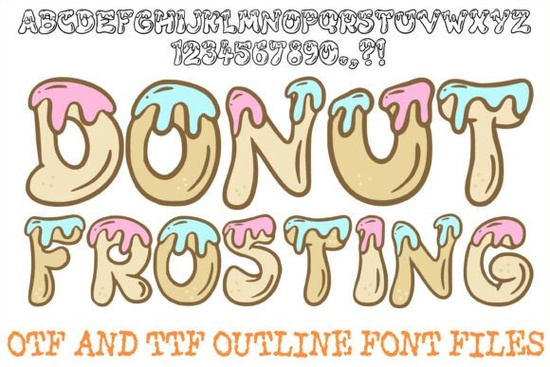
The Donut Frosting Font is a standout choice for anyone looking to add a playful, whimsical touch to their design projects. With its thick, rounded letterforms and exaggerated frosting details, this font brings a sense of fun and creativity that’s perfect for a variety of applications. Whether you're designing for a bakery, a children's event, or a food-related business, the Donut Frosting Font can help make your work more engaging and visually appealing.
One of the key features of the Donut Frosting Font is its versatility. The font includes clean interior paths, allowing users to color in the base letters and the frosting caps separately. This means you can mix and match colors to create unique combinations, like a classic chocolate base with a pink strawberry glaze. This level of customization makes it ideal for branding, packaging, and other design elements where visual appeal is important.
If you're working on a project that requires a bold, eye-catching display typeface, the Donut Frosting Font is an excellent option. Its cartoonish proportions and fluid design give it a dynamic feel that can bring life to headings, logos, and promotional materials. The font works well in both digital and print formats, making it a valuable addition to any designer's toolkit.
What Makes the Donut Frosting Font Unique?
The Donut Frosting Font stands out due to its distinctive style and attention to detail. Each character is designed to look as if it was freshly made and dripping with glaze. This gives the font a sense of realism and charm that can elevate any design. The rounded shapes and heavy frosting caps create a soft, approachable aesthetic that’s perfect for brands targeting a younger or more casual audience.
Another notable feature is how the font balances simplicity with complexity. While the overall design is playful and easy to recognize, the underlying structure is clean and professional. This balance allows the font to be used in a wide range of contexts without feeling too overwhelming or too basic.
Best Uses for the Donut Frosting Font
This font is especially well-suited for projects involving food, sweets, or anything with a playful vibe. Bakery branding, birthday invitations, and food truck menus are just a few examples of where the Donut Frosting Font can shine. It also works great for custom sticker sheets, apparel prints, and social media graphics that need a little extra flair.
For those who enjoy creating custom designs, the Donut Frosting Font offers a lot of creative freedom. You can experiment with different color schemes, layer effects, and typography layouts to find the perfect look for your project. Its flexibility makes it a go-to choice for designers looking to add a unique touch to their work.
How to Use the Donut Frosting Font Effectively
To get the most out of the Donut Frosting Font, consider pairing it with simpler, more neutral fonts for contrast. This helps prevent the design from becoming too busy while still maintaining a strong visual identity. You can also use the font in combination with illustrations or images that complement its playful style.
When using the font in digital projects, make sure to test it at different sizes and resolutions to ensure readability. While the font is designed for display purposes, it may not be suitable for body text. Instead, use it for headlines, titles, or other prominent elements where its visual impact can be fully appreciated.
Whether you're a designer, crafter, or small business owner, the Donut Frosting Font provides a fun and effective way to enhance your visual content. Its unique style and flexibility make it a valuable asset for anyone looking to add a touch of sweetness to their work.
- Experiment with color combinations to highlight the font’s details.
- Use it for display purposes rather than body text.
- Pair it with simpler fonts for better readability and contrast.